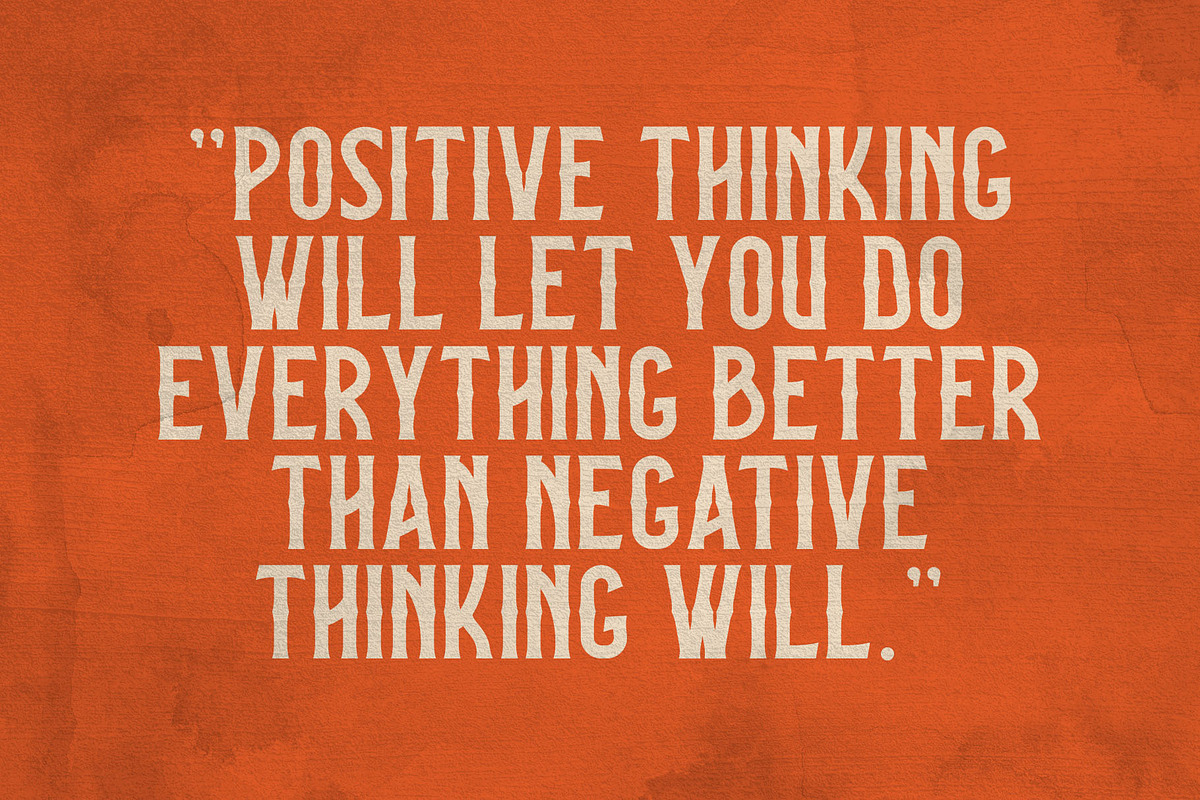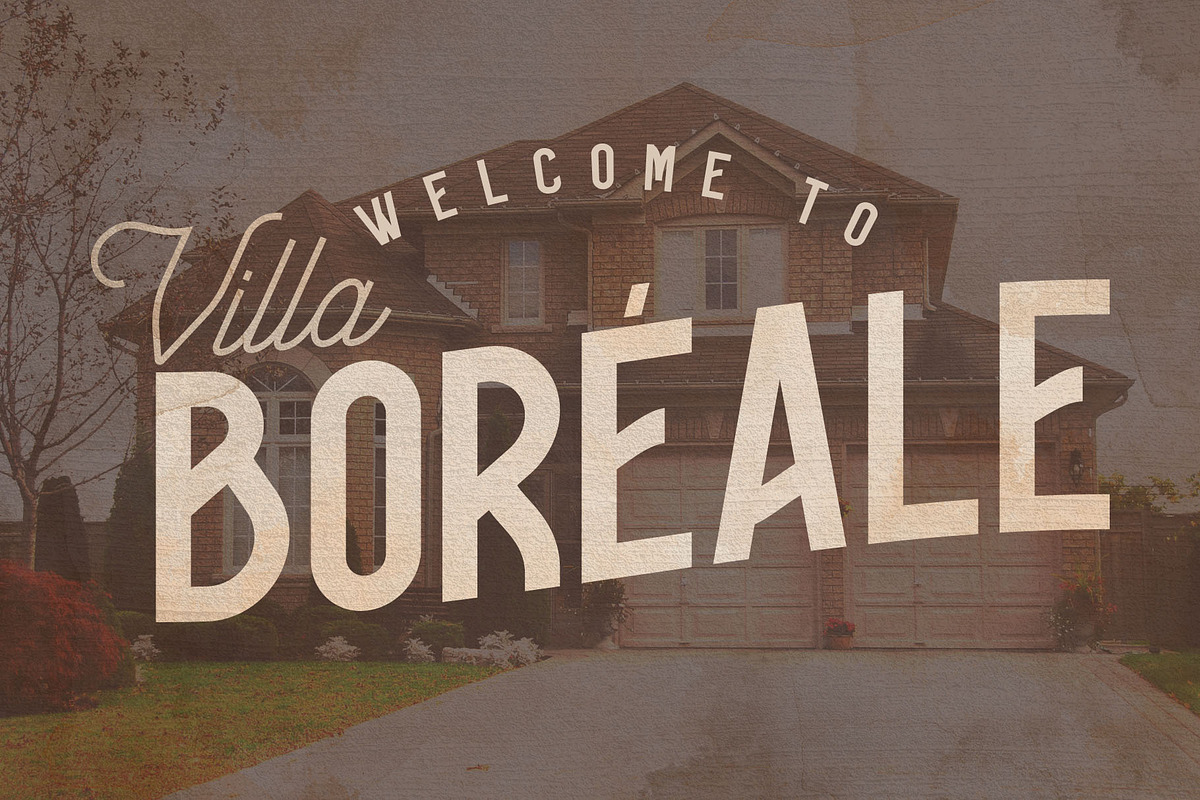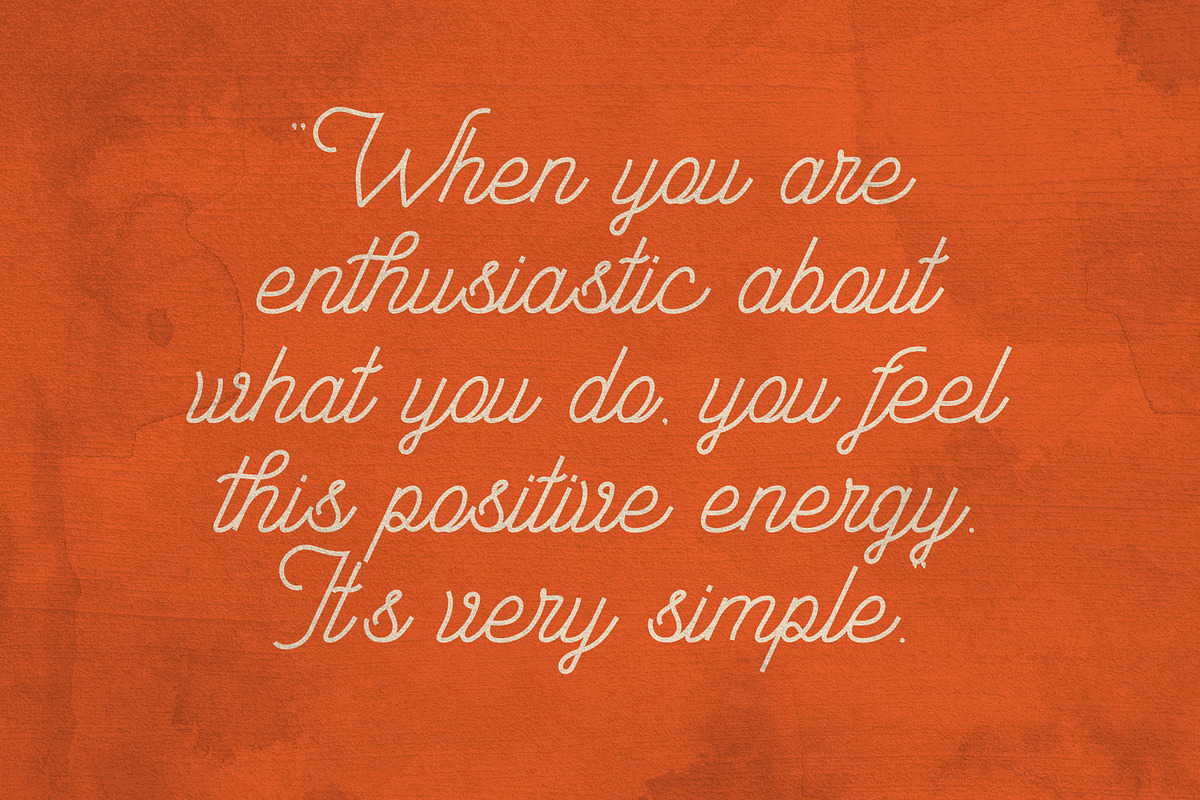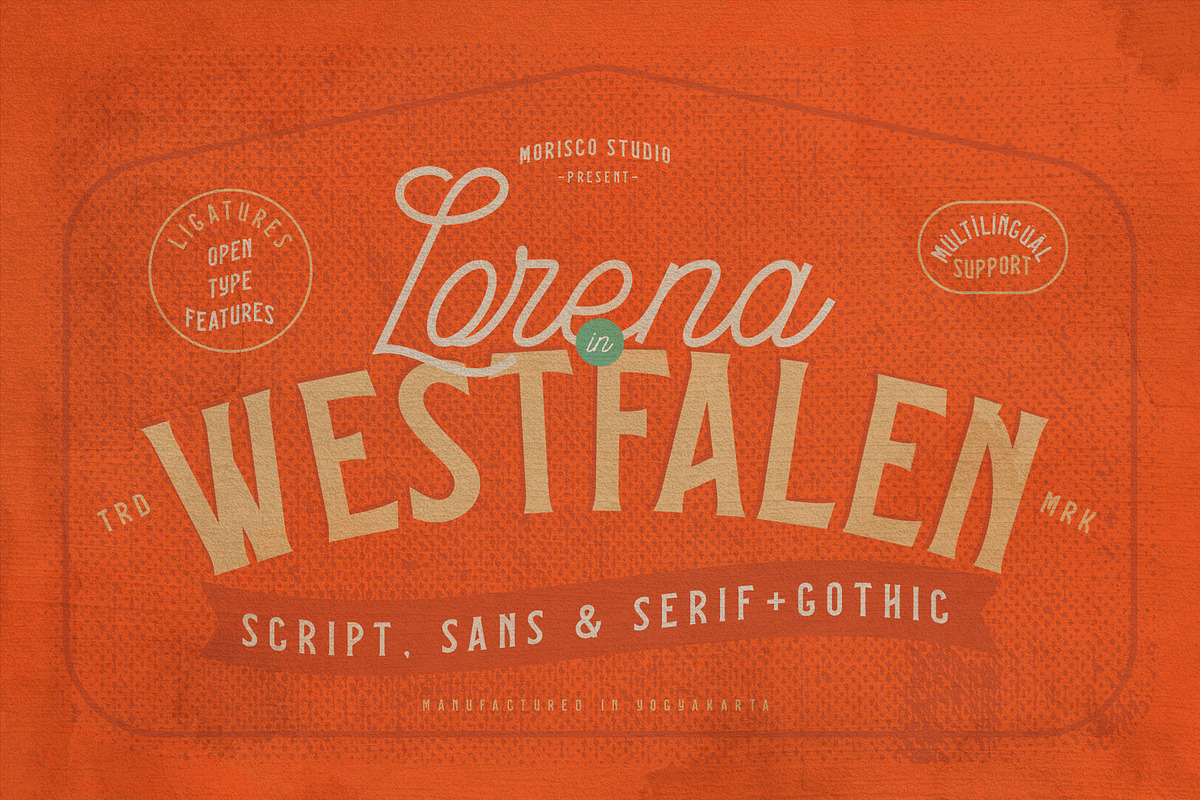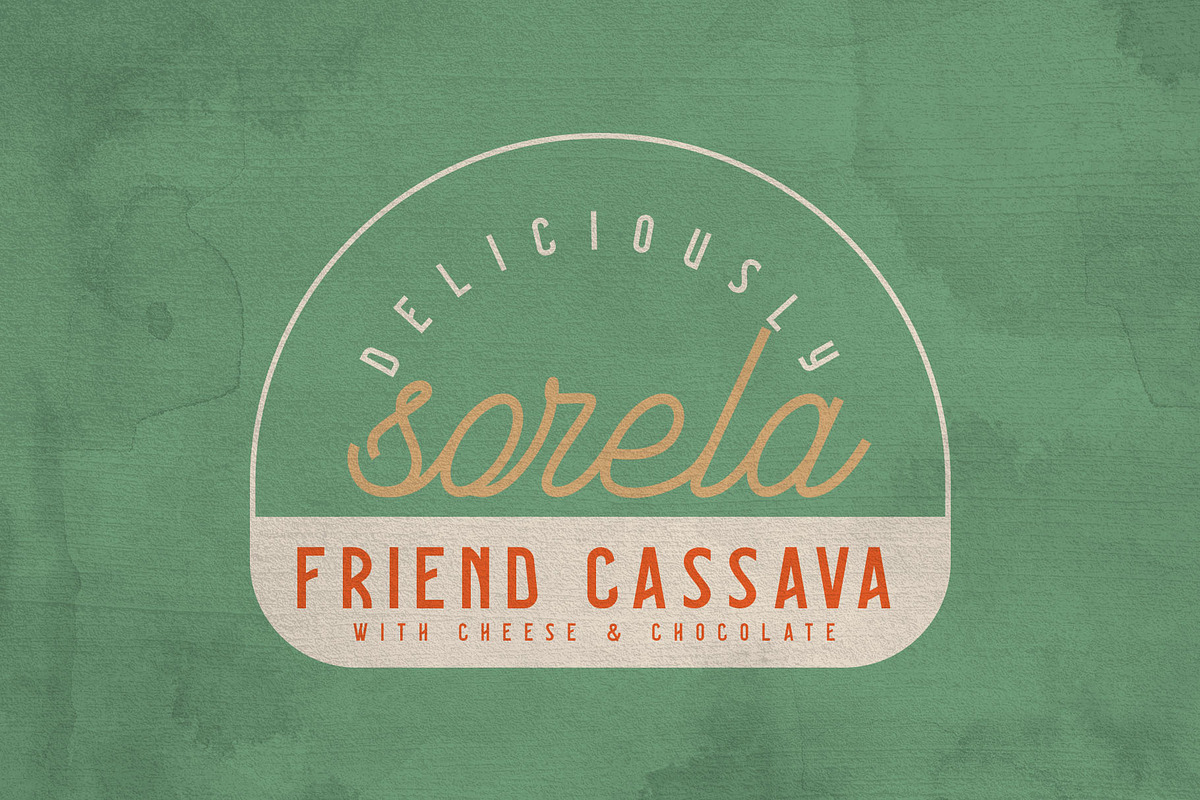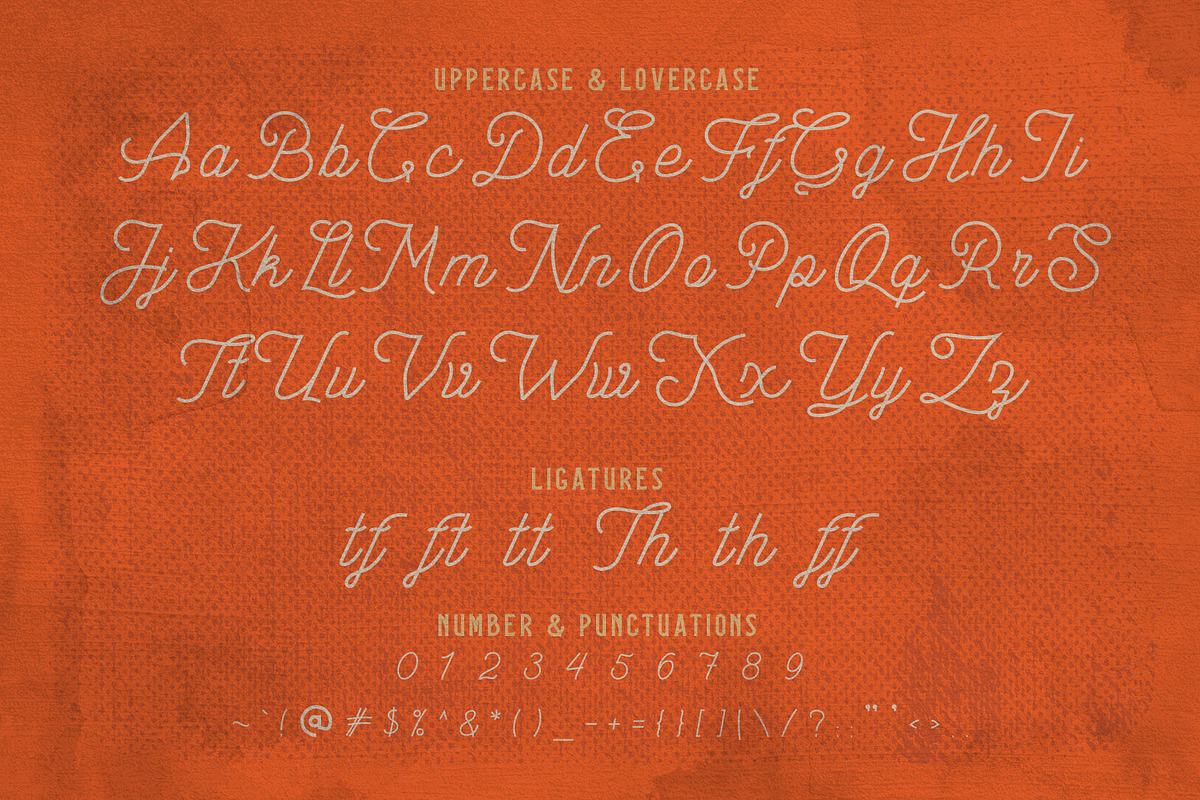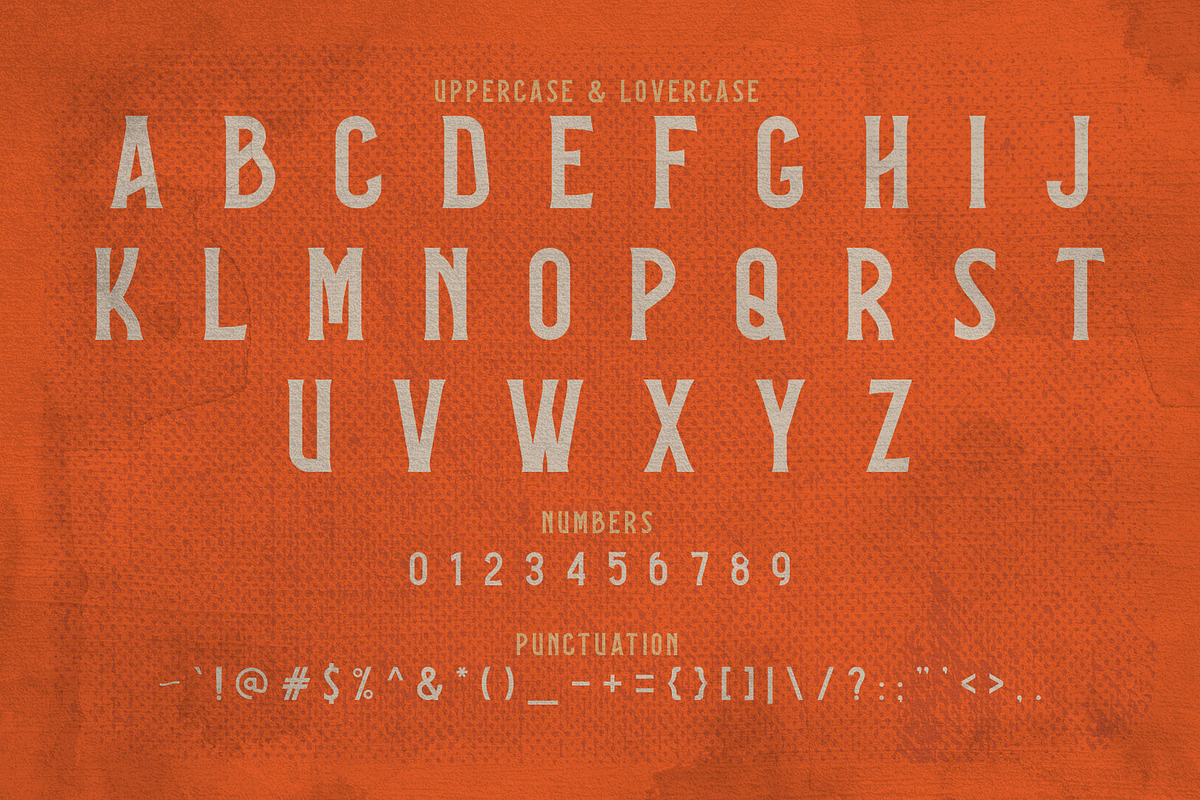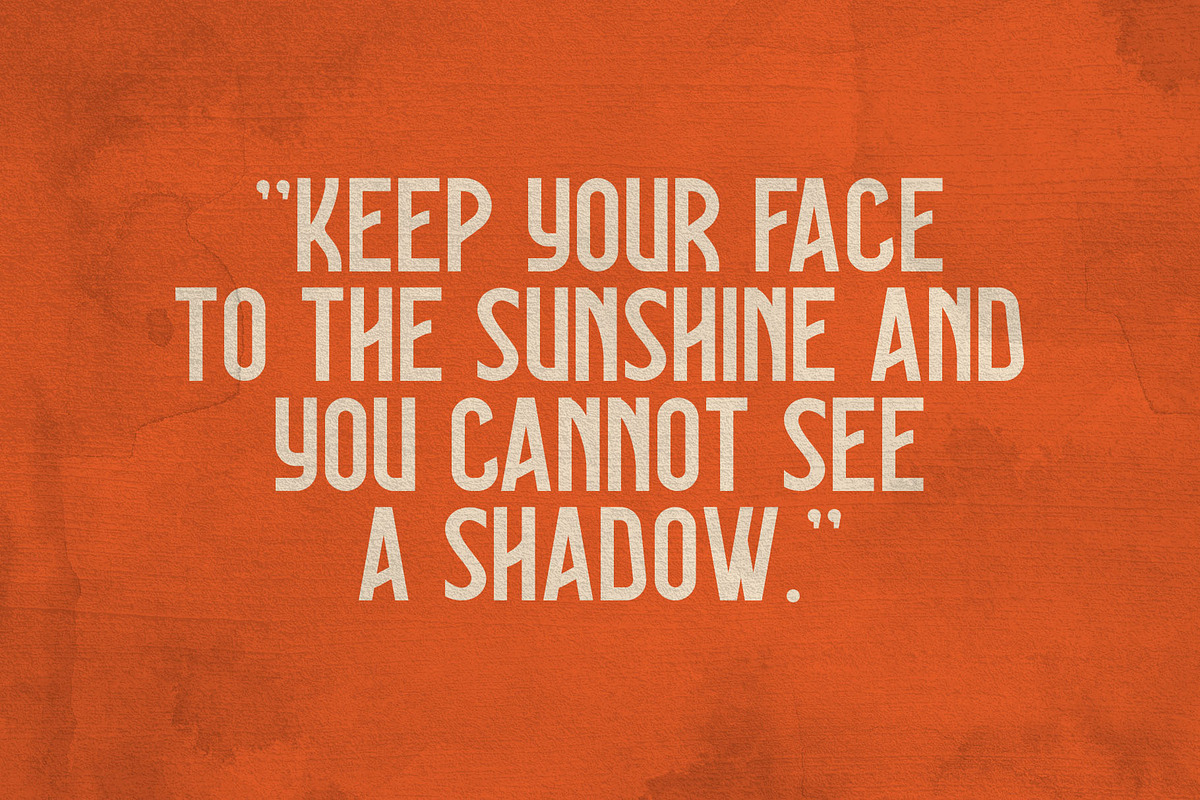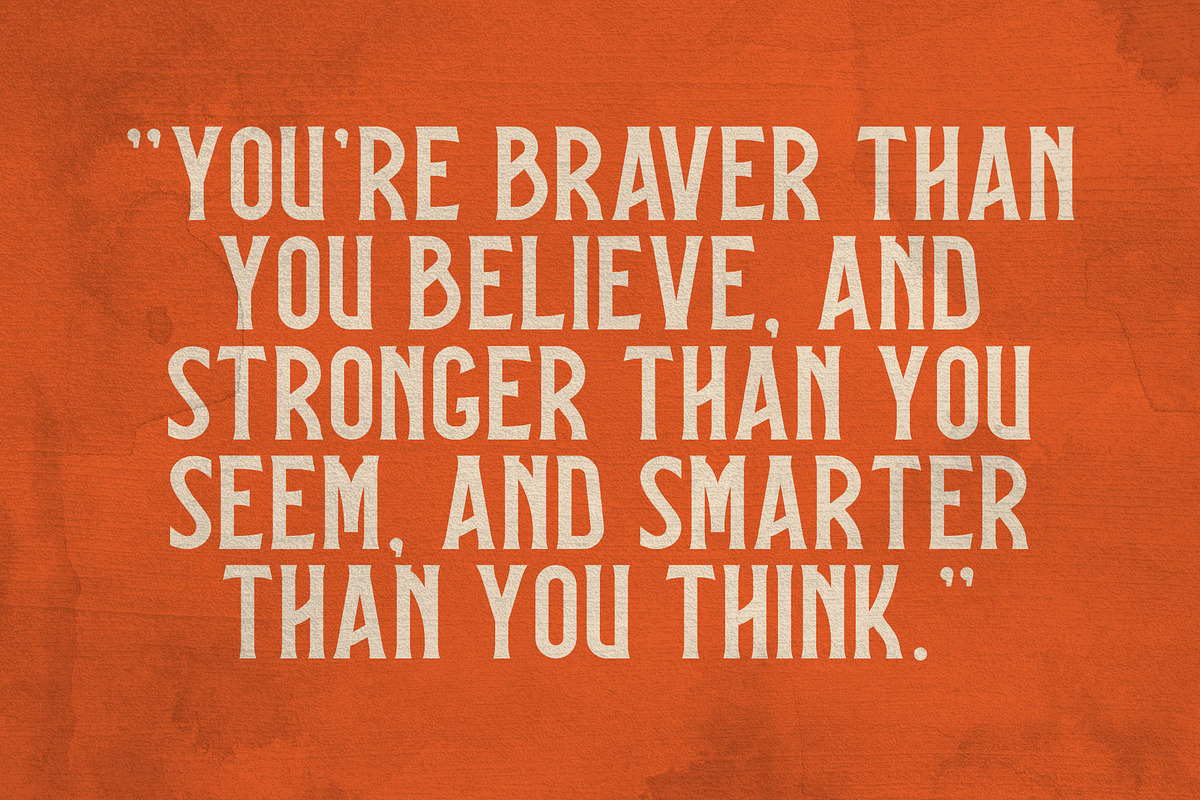
Lorena in Westfalen
Lorena in Westfalen is a elegant font with 4 style (script, sans, serif & gothic) designed by morisco studio. This font, well-suited for headline and any project, like branding, print template, logo and more. Lorena in Wesfalen support multilingual character and have open type features as ligatures.